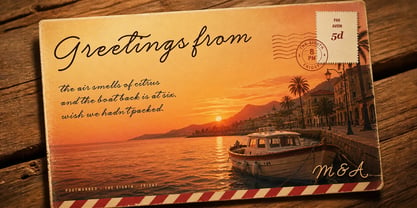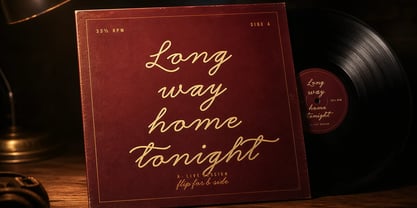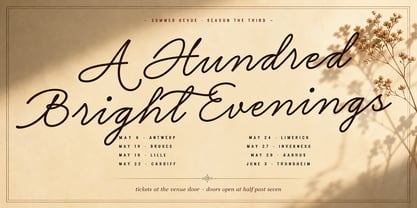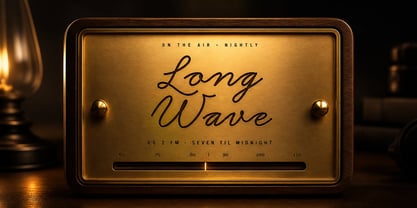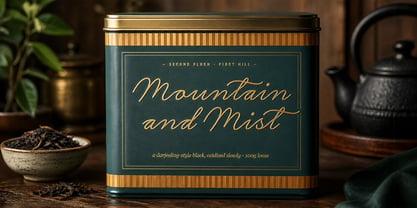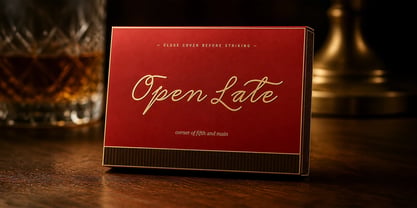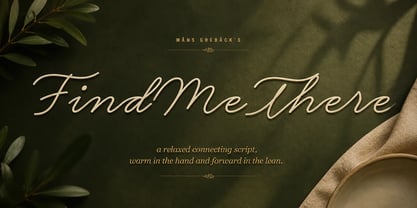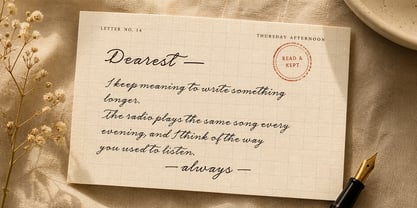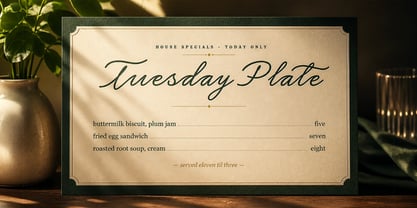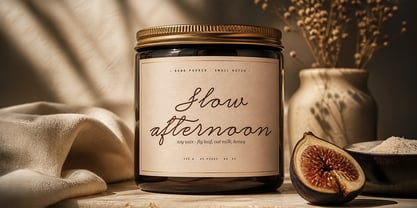
Find Me There
Find Me There is a relaxed connecting script with a forward lean and a warm, even line.
The letters link through unhurried joining strokes and stay close to a single weight throughout, giving the lowercase the feel of something written quickly rather than drawn carefully. Capitals lift off the line with light swashes — clearest on F, M, and T — without tipping into elaborate flourish. The italic adds a touch more slope, and the bold thickens the same hand without changing its character.
It reads naturally on a poster, a record sleeve, or anywhere a piece of type is meant to feel like it came from a person and not a press.
The font is built with advanced functionality and guaranteed top-notch quality, containing stylistic and contextual alternates, ligatures and more automatic and manual features; all to give you full control and customizability.
It has extensive lingual support, covering all Latin-based languages, from North Europa to South Africa, from America to South-East Asia. It contains all characters and symbols you'll ever need, including all punctuation and numbers.